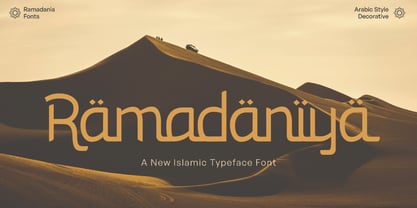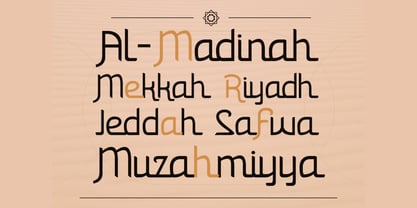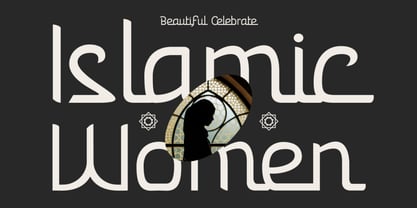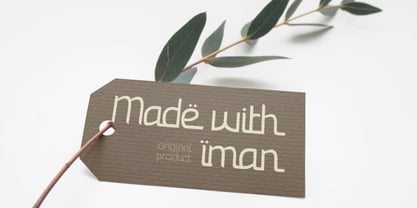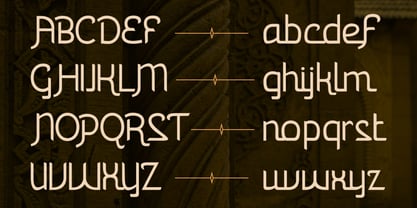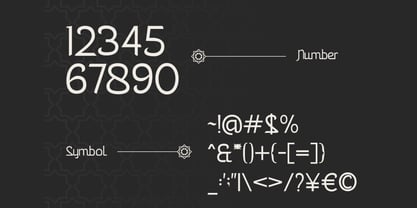
Ramadaniya
by Vadova Std
The Ramadaniya Font Family was designed by and published by Vadova Std. Ramadaniya contains 1 styles. More about this family
Elevate your designs with Ramadaniya Islamic, a modern font perfect for adding elegance and style to your projects. This font offers key features like OpenType format compatibility, uppercase and lowercase characters, plus numerals and punctuation, perfect for versatile and professional designs. Whether it’s for quotes, logotypes, magazine headers or more.